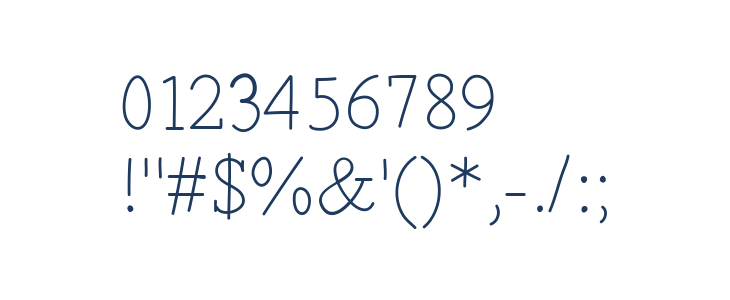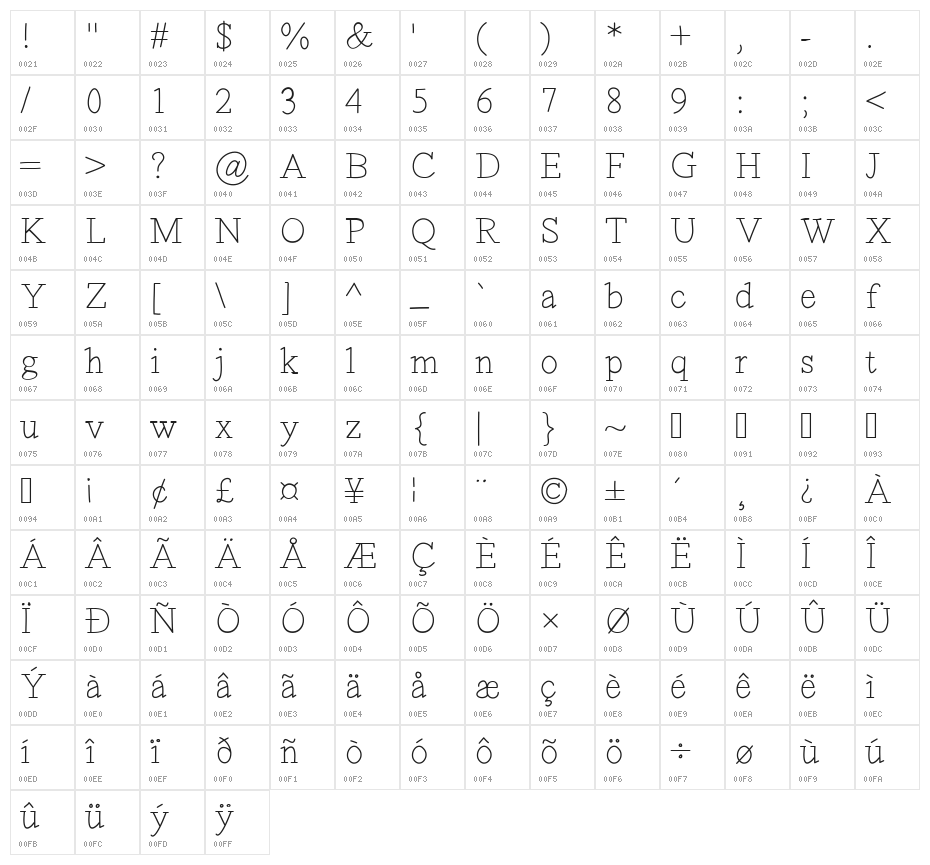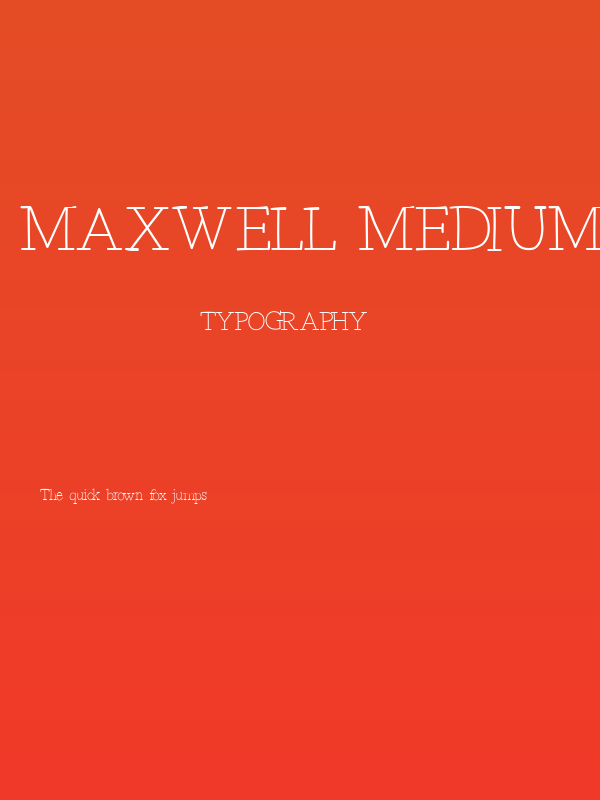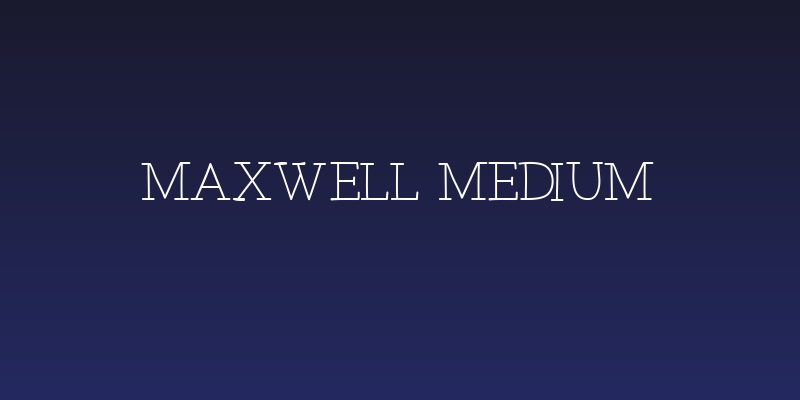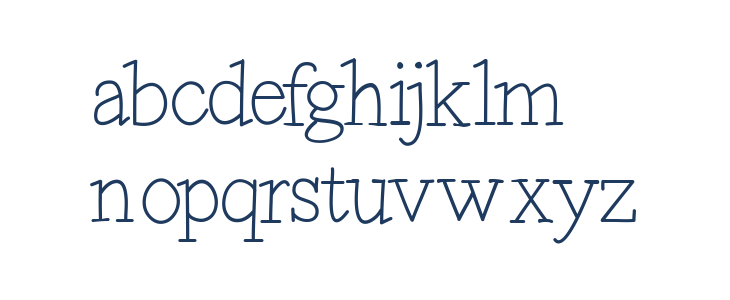
Maxwell Medium Font
Maxwell Medium Description
This font features a clean and modern design with a touch of elegance. The uppercase letters are tall and slender, with a consistent stroke width that gives them a refined appearance. The lowercase letters maintain a similar style, offering a harmonious blend between the two cases. Numbers are well-proportioned, ensuring readability and balance. The special characters are distinct and well-integrated, complementing the overall aesthetic. The font's simplicity and clarity make it versatile for various design applications.
| Proposed Projects | Ideal for branding, editorial design, and digital interfaces where clarity and elegance are paramount. |